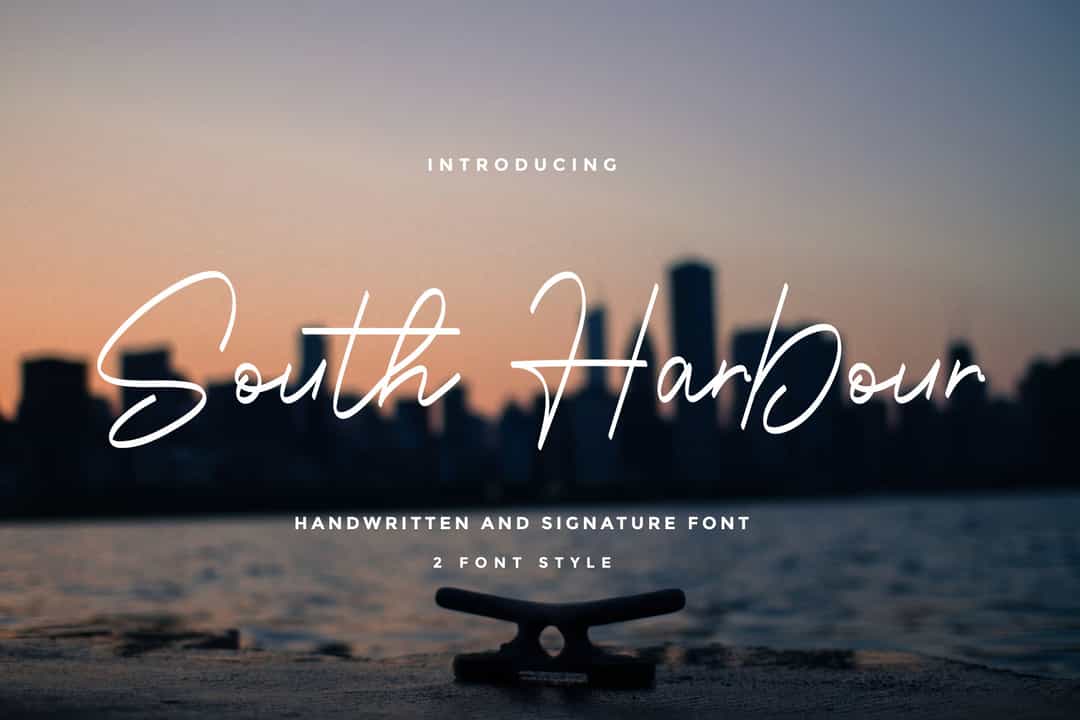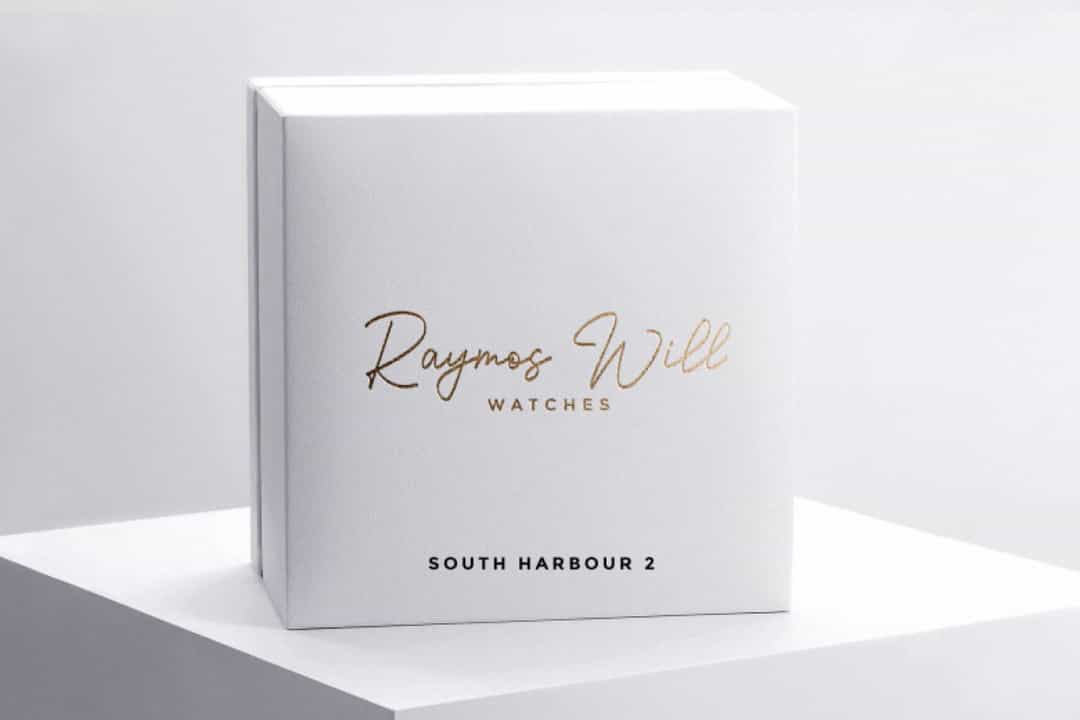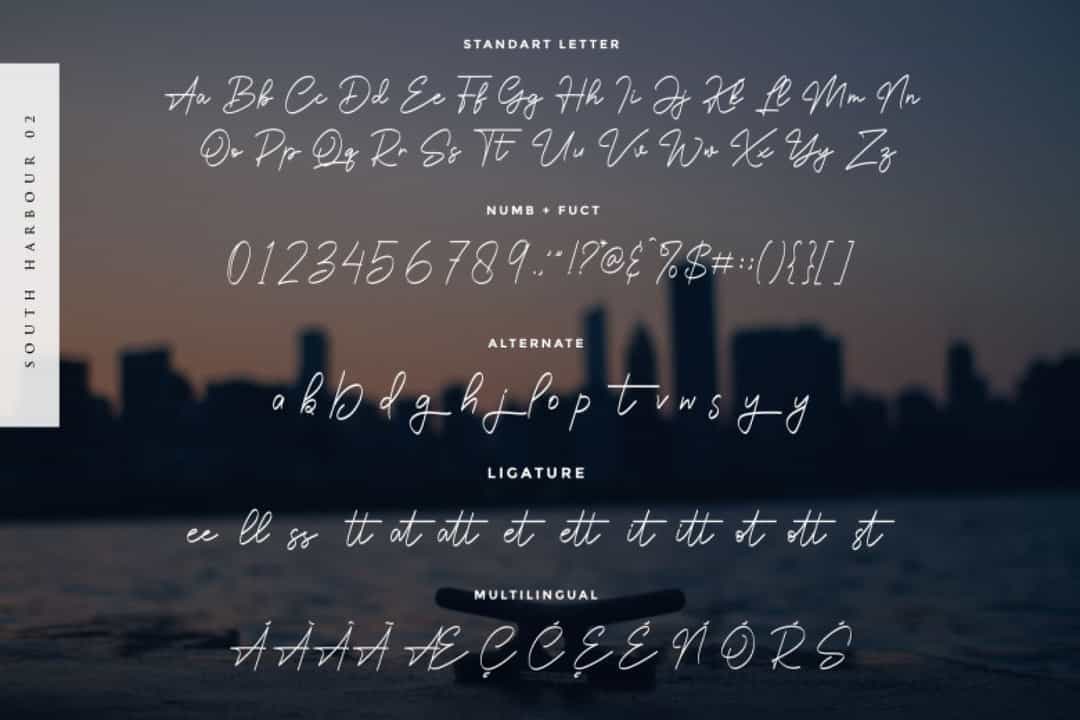
South Harbour is a scipt font with classical design and elegant look that is ideal for branding of high quality and prestigious products and services.